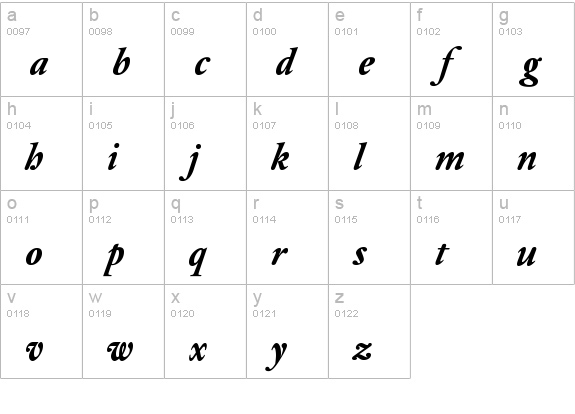
DTLElzevirS-BoldItalic Font Details
The DTLElzevirS-BoldItalic font is a bold and stylish typeface that exudes elegance and sophistication. With its slanted italic design, this font adds a touch of flair to any project, making it perfect for headers, titles, and other prominent text. The unique combination of boldness and italicized features makes this font stand out and grab attention. Best of all, the DTLElzevirS-BoldItalic font is available for free download at FontsMarket.com. This means you can easily access and use this stunning font in your designs without any cost. Whether you're working on a professional project or a personal creative endeavor, the DTLElzevirS-BoldItalic font will elevate your work with its distinctive and eye-catching appearance. Download it today and add a touch of bold elegance to your next design project.